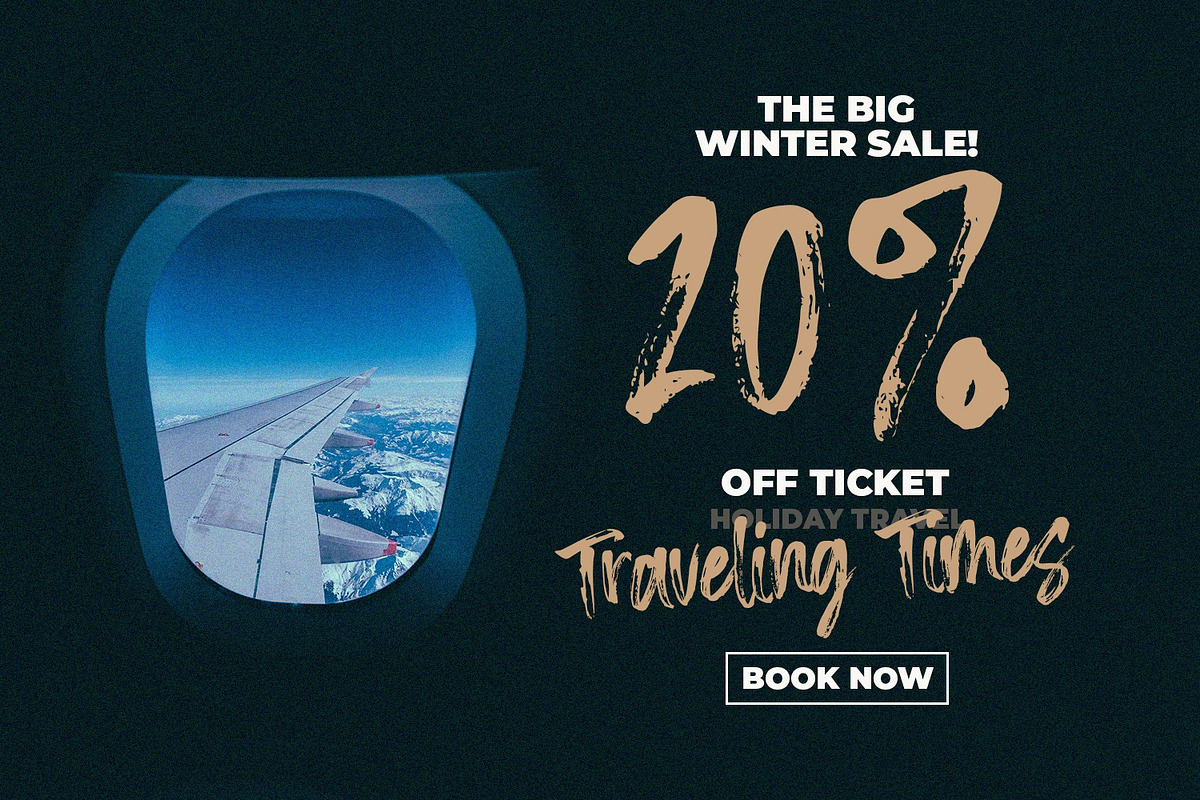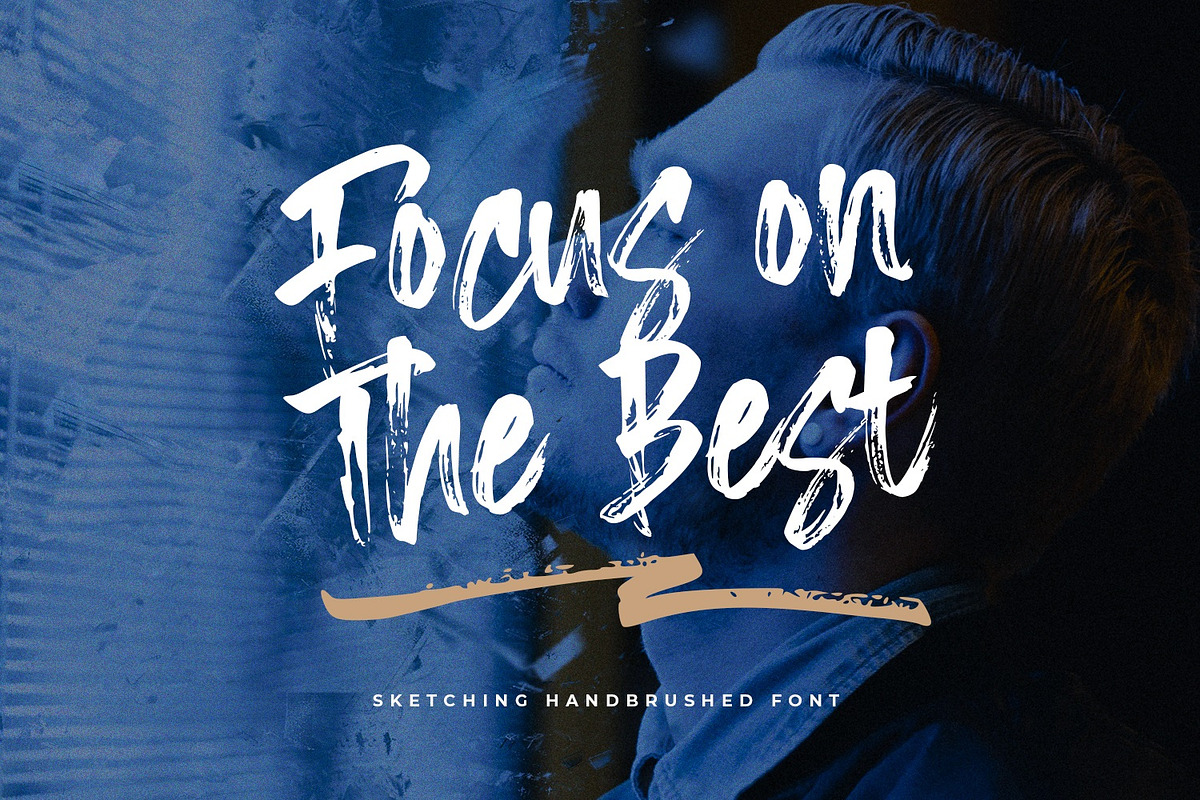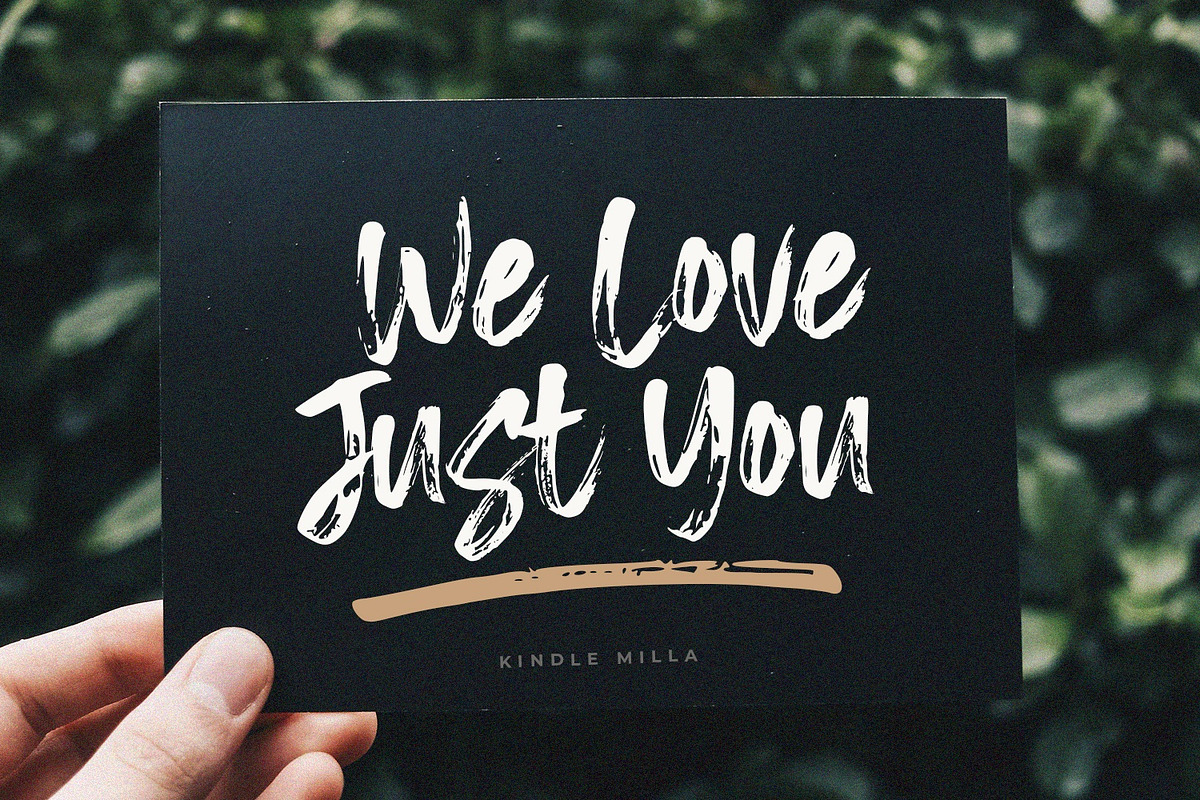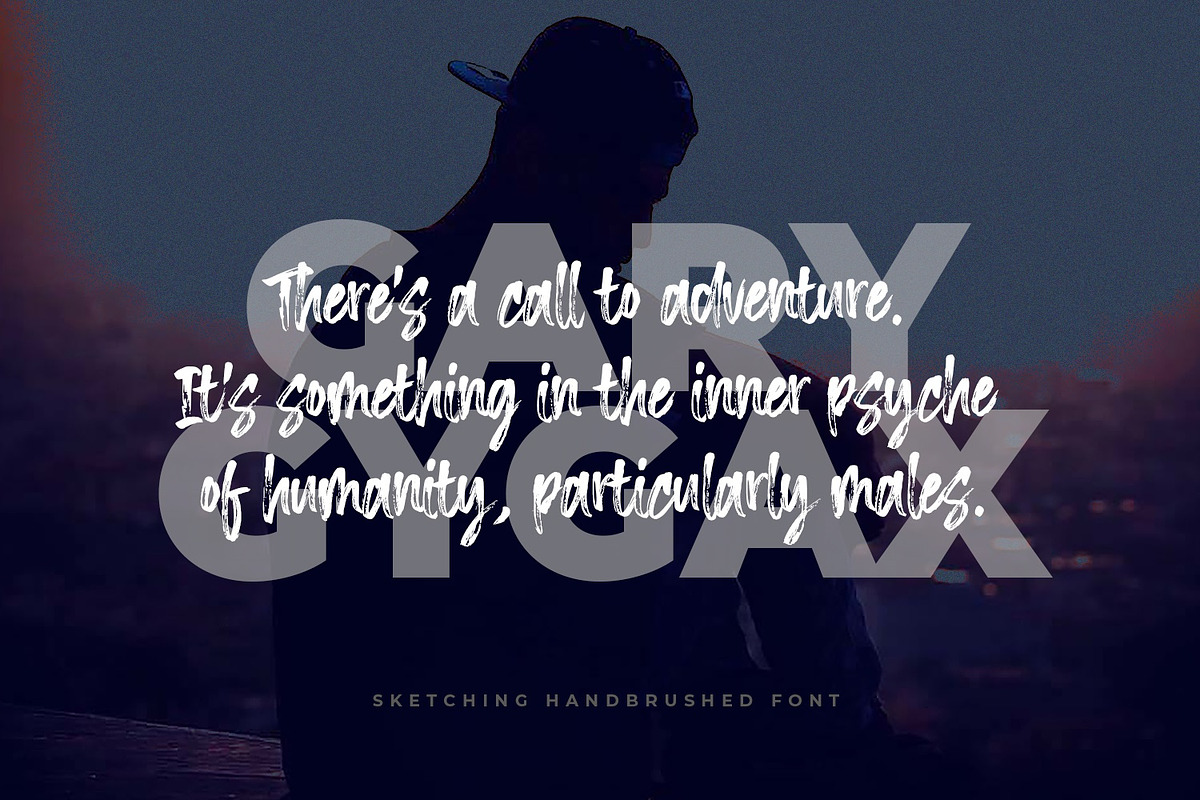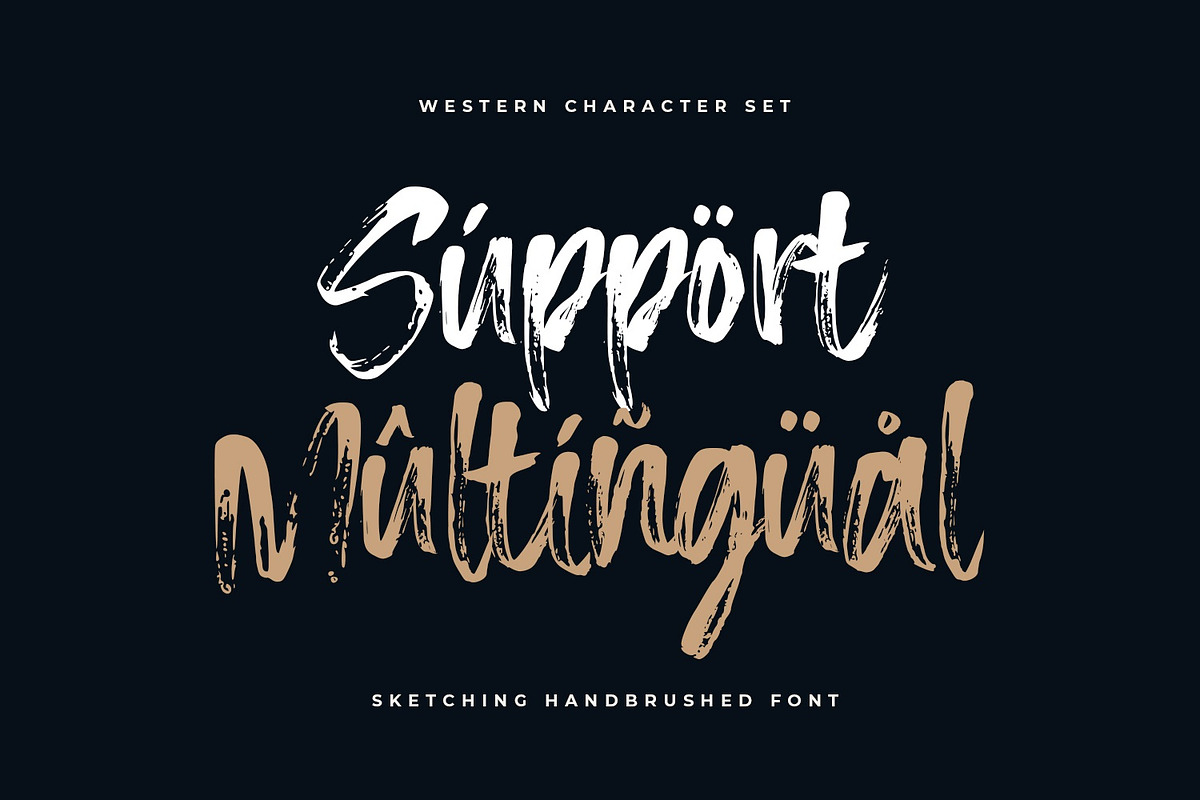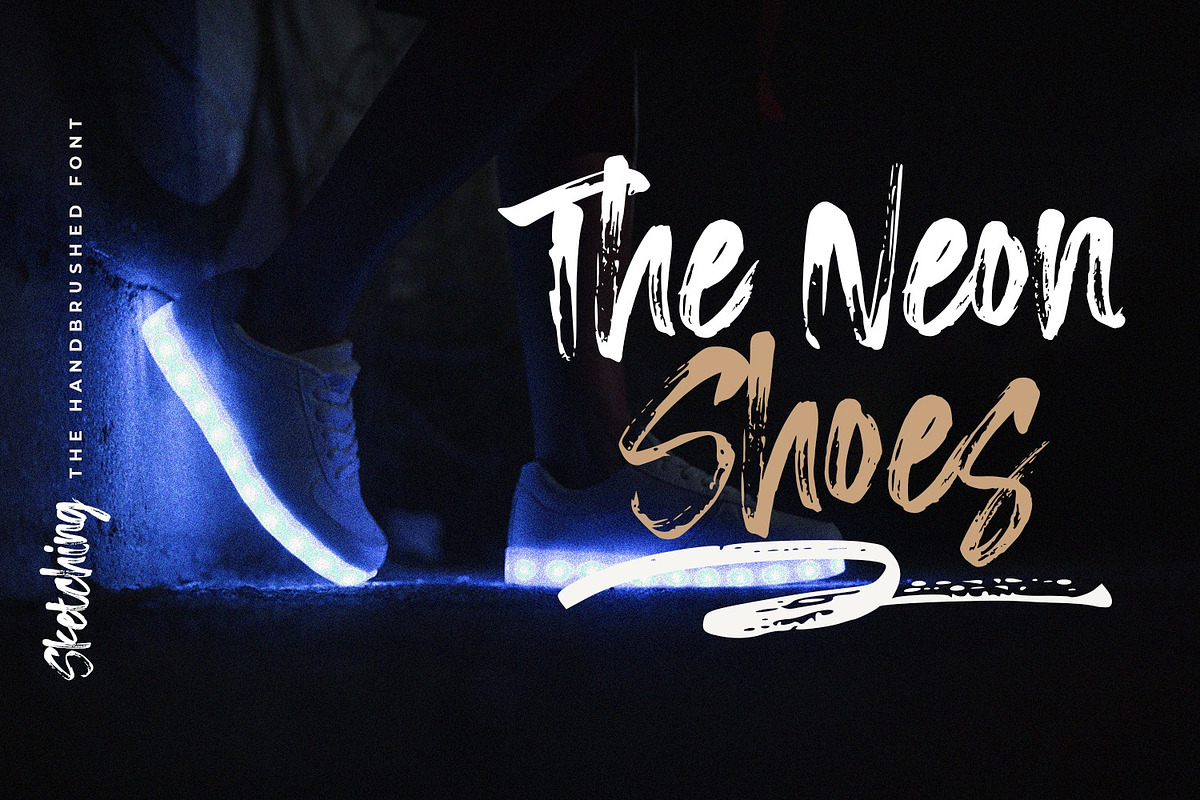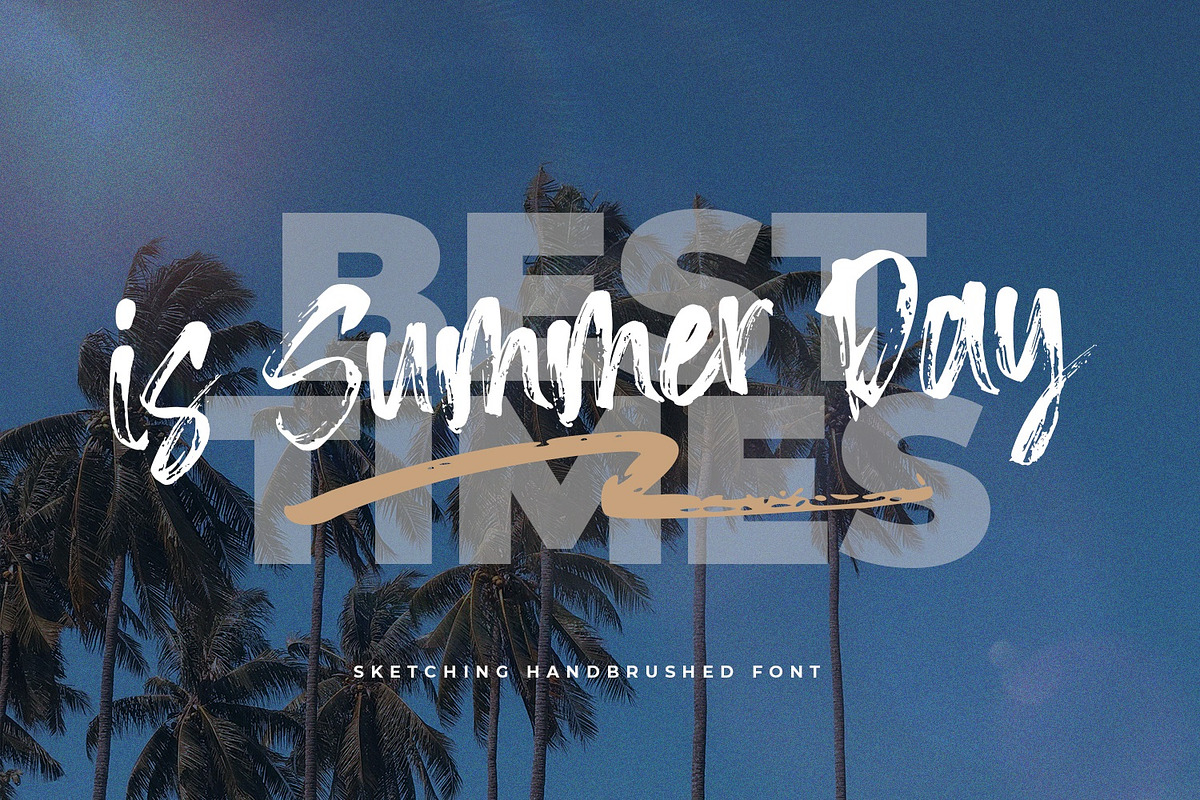
Sketching - The Handbrushed Typeface
Hi everyone, this time we made a font of ink streaks on paper. We created this font using a brush. We love to make it, because this is a work of art itself. Making it through a long process. Every letter we make has always maintained its distinctive style. We hope you are all happy with our latest font.
1. Sketching - The Handbrushed Typeface, Handbrushed font including upper & lowercase characters, numerals and more of symbols.
3. Multilingual support for various languages
- Sketching Swash, Included 26 unique swashes.
Why Sketching - The Handbrushed Typeface is worth a look
Sketching - The Handbrushed Typeface by Graphicfresh fits naturally into Branding, posters, packaging, typography.